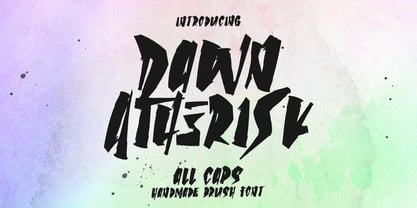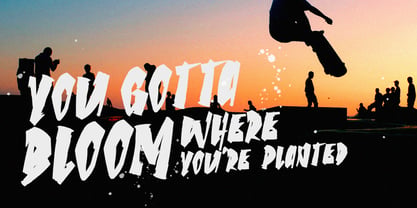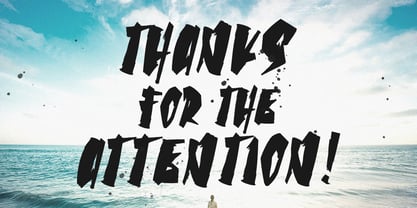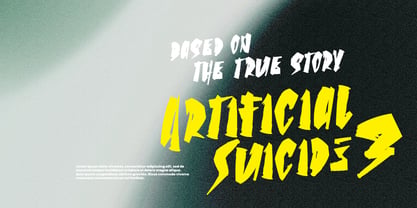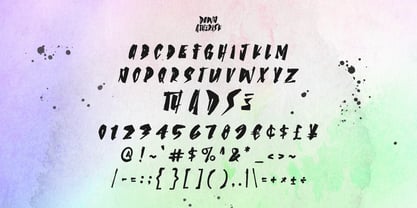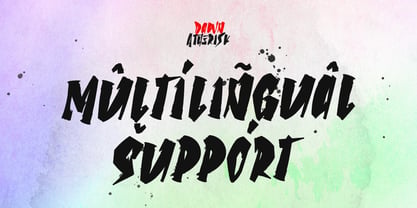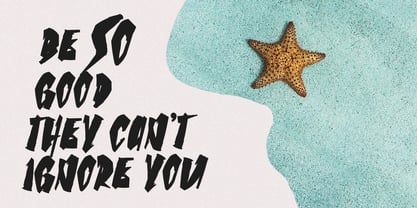
MC Dawn Atherisk
by Maulana Creative
The MC Dawn Atherisk Font Family was designed by Gilang Maulana and published by Maulana Creative. MC Dawn Atherisk contains 1 styles. More about this family
Dawn Atherisk speed brush display handmade font, fun character with alternate and ligature. To give you an extra creative work. Dawn Atherisk handmade brush display font support multilingual language.
Designers: Gilang Maulana
Foundry: Maulana Creative